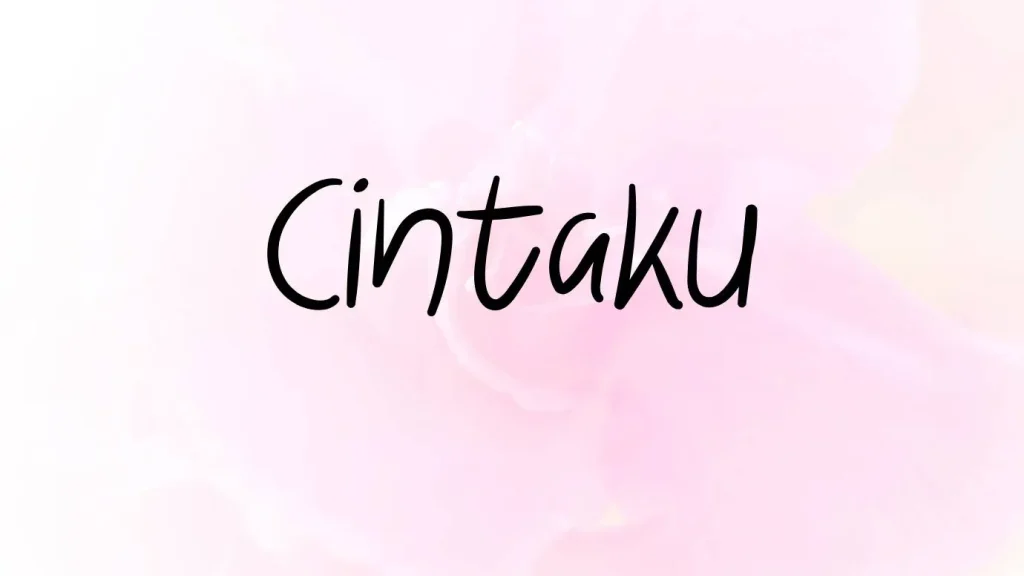
Cintaku Font style can increase the prominence of your project, this text style is a great option. This style is excellent in terms of its basic elements, despite its traditional typography. The typeface is a great choice for all of your fun design projects.
Main Features of the Cintaku Font
There is a Regular font subfamily. This font enhances the neatness and cleanliness of your text and design. This family fits perfectly with the CSS family.
There is no doubt that this typeface has flexible characters that will give you flawless results. Many people use lucida sans font for their projects because it is great for creating unique designs.
It also includes standard capitalization, variations, fashionable substitutes, and numbers. An online font generator tool can also be used to create this type of design aesthetic.
Cintaku Font View
Few Examples of Cintaku Font Usage
In addition to creating posters, social media posts, and animated logos, you can also use this typeface. It can also be used in titles and headings on websites and other design pages. You’ll be able to change over your simple and easy content into artwork.
Utilize this typeface on Canva to effectively make professional designs. A few of the places where you’ll be able to utilize text style incorporate Websites, Blogs, Logos, postcards, promotions, brochures, and much more.
The styles and characters are unbelievable for any highlights and title. Other than that, you will be able to make Hotel/Shop names, Cities, reports, sales, long and brief sections, clear substance plans, and so on. It can also make a very well paired with recoleta font.
This typeface can be used to create cards, logos, and invoices with a decorative touch. This tool is useful for magazine covers, banners, and social media posts. This is also a great material for newspaper design, posters, and other related projects.
Any occasion will be enhanced by this beautiful, typeface. If you want to add a little romance to your wedding invitations or simply want to make a loved one’s birthday card extra special, then this typeface is for you. Your designs will stand out and be unique with this style.
Common Questions About Cintaku Font
Is the Cintaku font outdated?
This font is still a popular choice for designers. It is a stylish and elegant font that can be used for a variety of purposes.
What are the characteristics of Cintaku font?
Some of the most notable features of this font include its tall and thin letters, as well as its slightly slanted baseline. This gives the font a stylish and sophisticated look that is perfect for formal or professional designs.
Is Cintaku Font Good for Titles?
This Font is an excellent choice for titles and headlines thanks to its stylish design. This unique typeface is sure to make your headlines stand out from the rest.